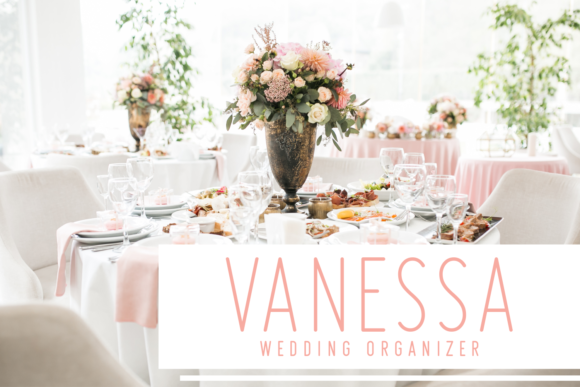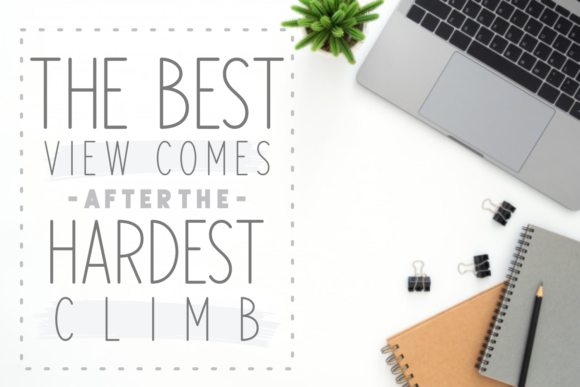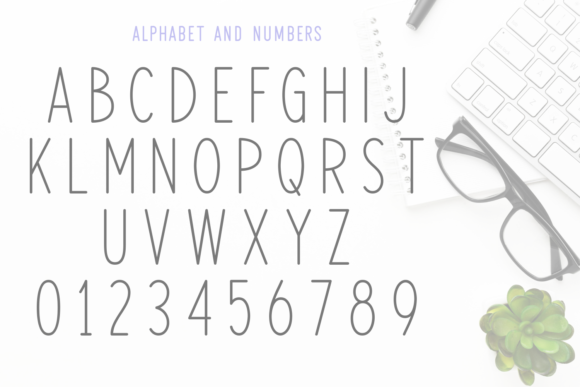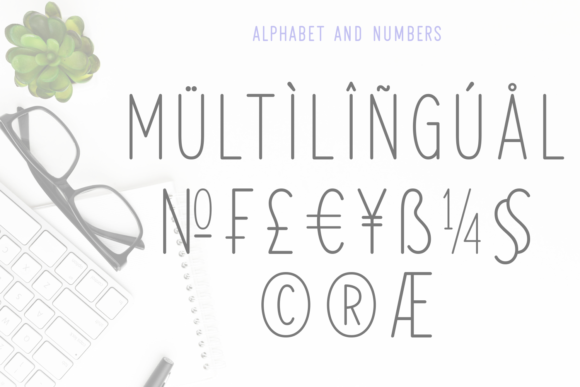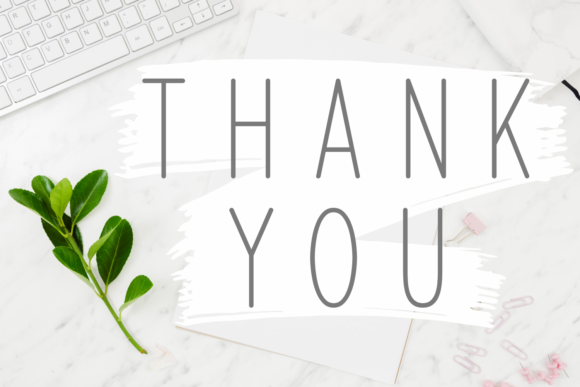
Introduction to Micalyne Font
Remember the moment when you spent hours perfecting your design, tweaking every detail to bring your creative vision to life? For designers, those moments of clarity and triumph are what make all the hard work worth it. One crucial element that can elevate your designs is the perfect font. In this article, we’ll explore the Micalyne Font, a simple yet friendly sans serif font that can help you create spectacular designs.
| 📌 Product Name | Micalyne Font |
| 👤 Author | Kelik – 7NTypes |
The Micalyne Font is an excellent design resource for any creative project, offering a high-quality, free download that’s perfect for designers of all levels. With its transparent background and clean lines, this font is ideal for creating visually appealing designs that pop. Whether you’re working on a logo, brochure, or website, the Micalyne Font is sure to bring a touch of sophistication and elegance to your work.
Key Features of Micalyne Font
- High-quality design resource for creative projects, including graphics, logos, and more.
- Transparent background option allows for seamless integration into any design.
- Includes a range of font styles and sizes, making it a versatile design resource.
- Supports high-resolution displays, ensuring crisp and clear text at any zoom level.
- Perfect for use in digital design, including web pages, social media, and mobile apps.
Honest Review: Micalyne Font
As a designer, I’m always on the lookout for high-quality design resources to enhance my creative projects. Recently, I stumbled upon the Micalyne Font, and I’m excited to share my honest review.
- ✨ High-quality typography: The Micalyne Font features beautiful, elegant lines that add a touch of sophistication to any design.
- ✨ Versatility: This font is perfect for a wide range of creative projects, from logos and branding to editorial and advertising designs.
- ✨ Transparent background: The font’s transparent background allows for seamless integration with other design elements.
- ⚠️ Limited language support: Unfortunately, the Micalyne Font only supports a limited range of languages, which may be a drawback for designers working with international clients.
- ⚠️ Limited customization options: While the font itself is beautiful, the customization options are relatively limited, which may not be ideal for designers who like to experiment with different styles.
Overall, I’m impressed with the Micalyne Font. Its high-quality typography and versatility make it a valuable addition to any designer’s toolkit. While it has some limitations, it’s a great resource for designers working on creative projects that require a touch of elegance and sophistication.
The Micalyne Font is a versatile and high-quality design resource that can be used in a variety of creative projects. With its transparent background and sleek design, it’s perfect for adding a touch of elegance to your work.
For optimal results, use the Micalyne Font on a high-quality image or design element. Experiment with different font sizes and styles to find the perfect look for your project.
The Micalyne Font is perfect for use in a variety of creative projects, including:
With its free download and high-quality design, the Micalyne Font is a must-have resource for any designer or creative professional.